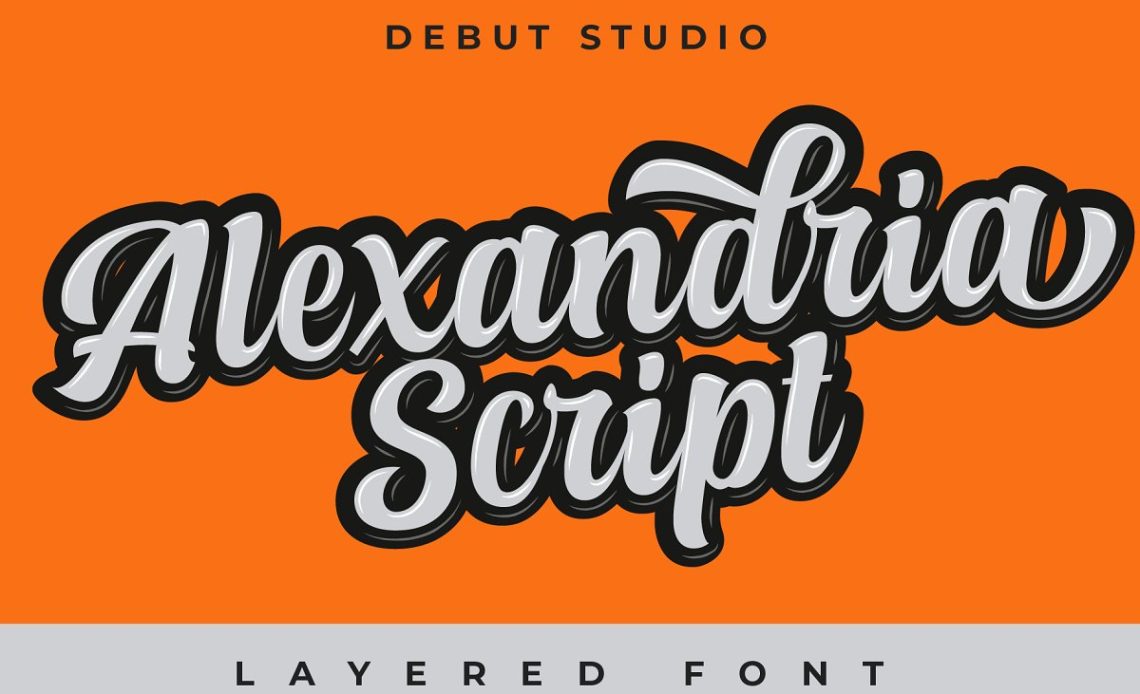
Introducing the Alexandria Script Layered Fonts, a script font family created by Ari Fadli. This font has been updated in 2021, making it cleaner, more consistent, and more attractive than ever before. The Alexandria Script New Update 2021 is perfect for those who are looking for the best fonts for brochure design, logo design, t-shirts, branding, and various other design purposes.
The Alexandria Script Layered Fonts has four fonts that can be used with layers method, generating interesting fonts that are pleasing to the eye. You no longer need to worry about how to make effect on the text as this font is versatile and easy to use. The four fonts included in this package are Alexandria Script Base, Alexandria Script Regular, Alexandria Script Shadow, and Alexandria Script Highlight.
If you're worried about using this font in your language, then rest assured because it supports multiple languages. Plus, you can access the OpenType Stylistic alternates by using a program that supports OpenType features such as Adobe Illustrator CS, Adobe Indesign & CorelDraw X6-X7, Microsoft Word 2010 or later versions.
Are you in love with the old version of Alexandria Script? No worries, it's still available! This font is suitable for young, passionate designers who are looking to elevate their designs to the next level. With its alternate stylistic characters, this font is perfect for any design project.